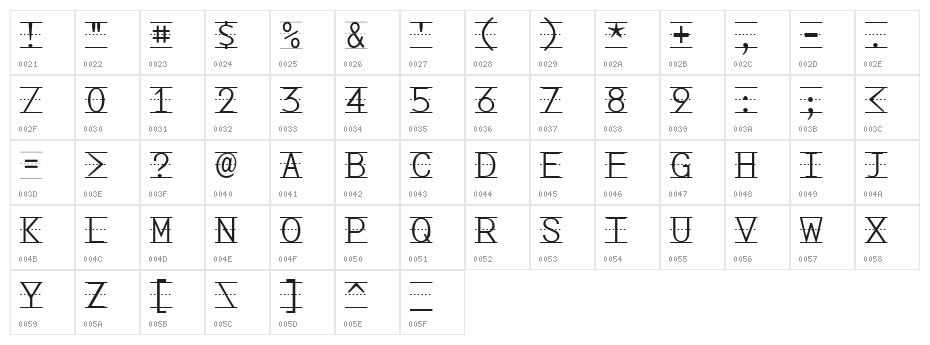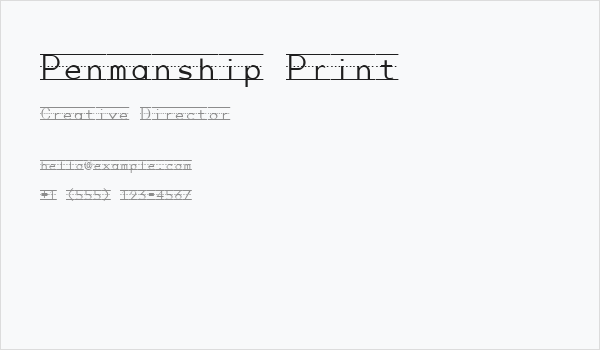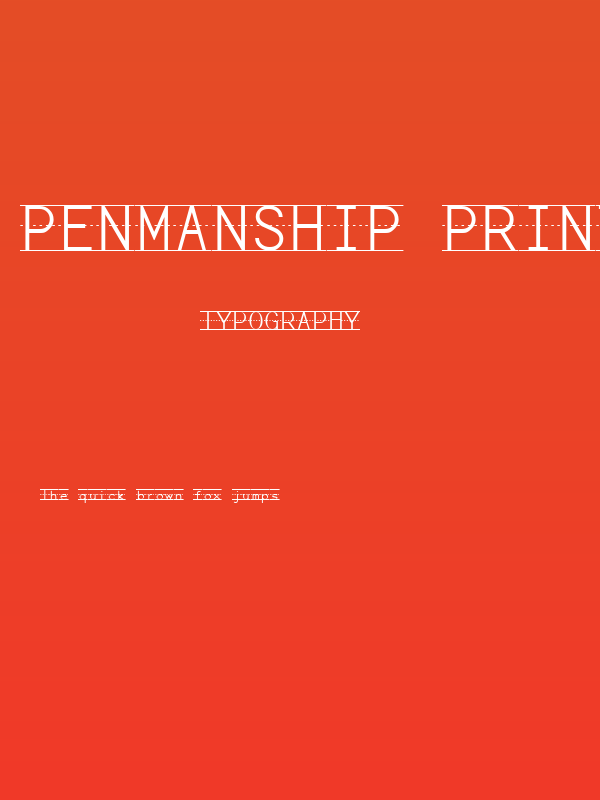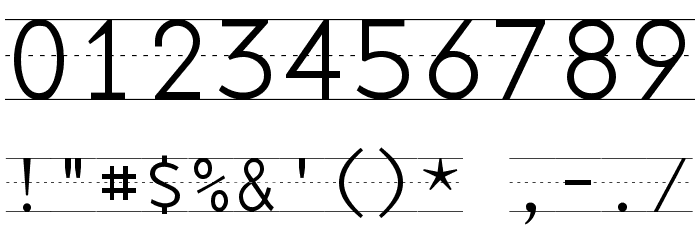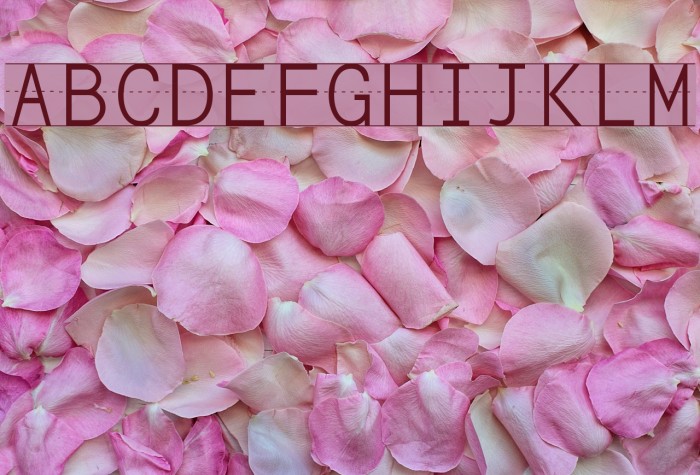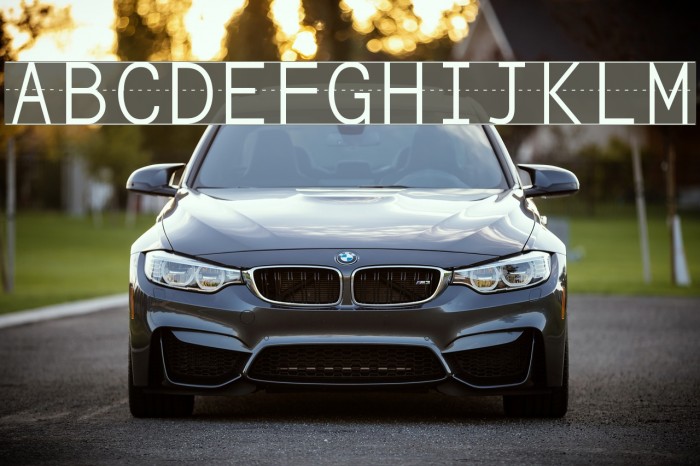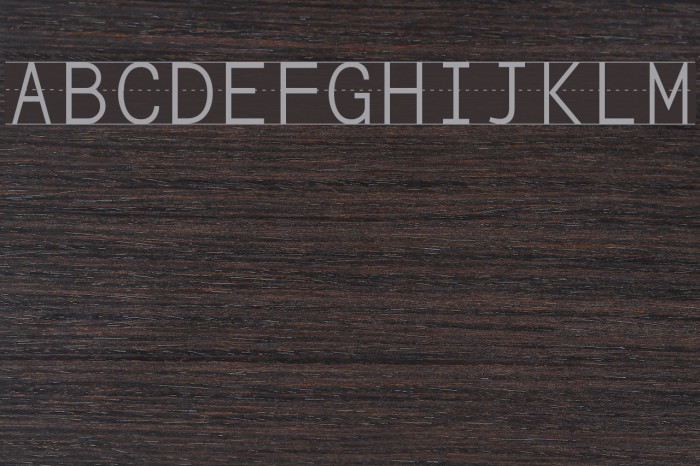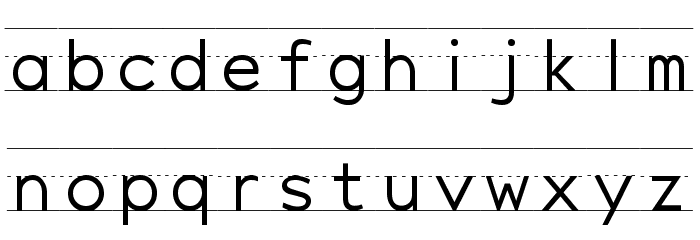
Penmanship Print Font
Penmanship Print Description
This font features a clean and structured design, reminiscent of traditional handwriting practice sheets. The characters are evenly spaced and aligned with a consistent baseline, providing a sense of order and clarity. The uppercase letters are bold and prominent, while the lowercase letters maintain a balanced and harmonious appearance. The numerals are straightforward and easy to read, making them suitable for educational materials. Special characters are included, each designed with the same attention to detail and clarity. The overall style is approachable and functional, ideal for instructional or educational contexts.
| Overall Style | Classic |
| Use Case | Educational materials, instructional guides, children's books. |
| Proposed Projects | Ideal for educational materials, children's books, instructional guides, and any project requiring a clear and approachable typeface. |